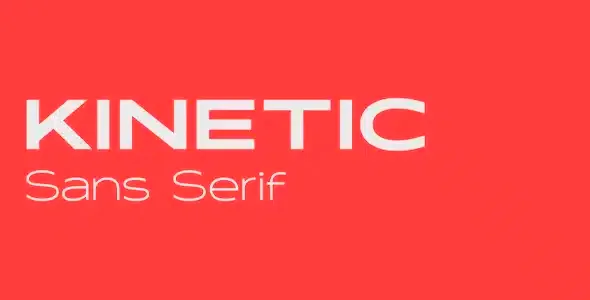
Kinetic Typeface Premium Font
Introducing Kinetic Typeface Premium Font, a versatile wide font inspired by movement and globalization. Suitable for maximum visual impact, it includes two weights with matching true obliques.
Kinetic Typeface Premium Font is a typeface system that embraces the minimalist look associated with neo-grotesque, combining bold lines with highly refined curves and iconic geometric shifts.
The “Kinetic” family includes two weights (Light and Bold) with their corresponding obliques and covers several languages based on the Latin alphabet.
Ideal for headlines, large format prints, brand identities, social media, advertising, editorial design, posters.